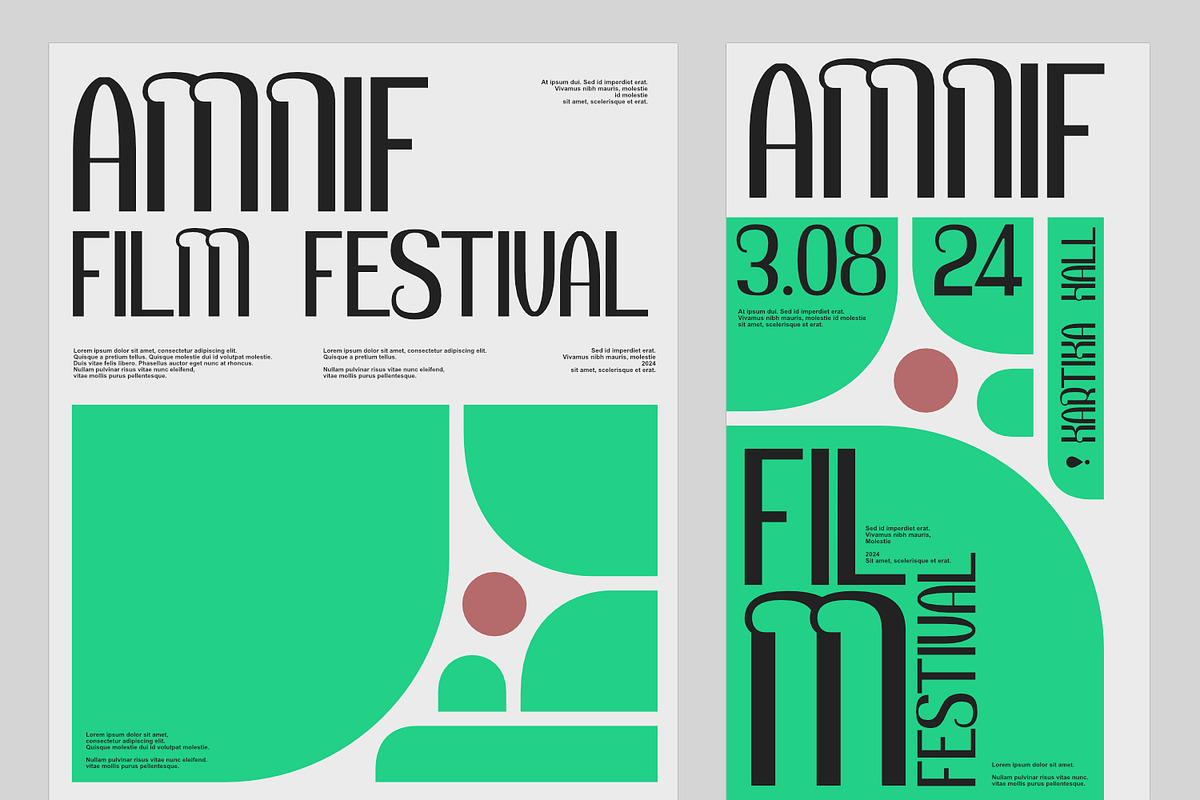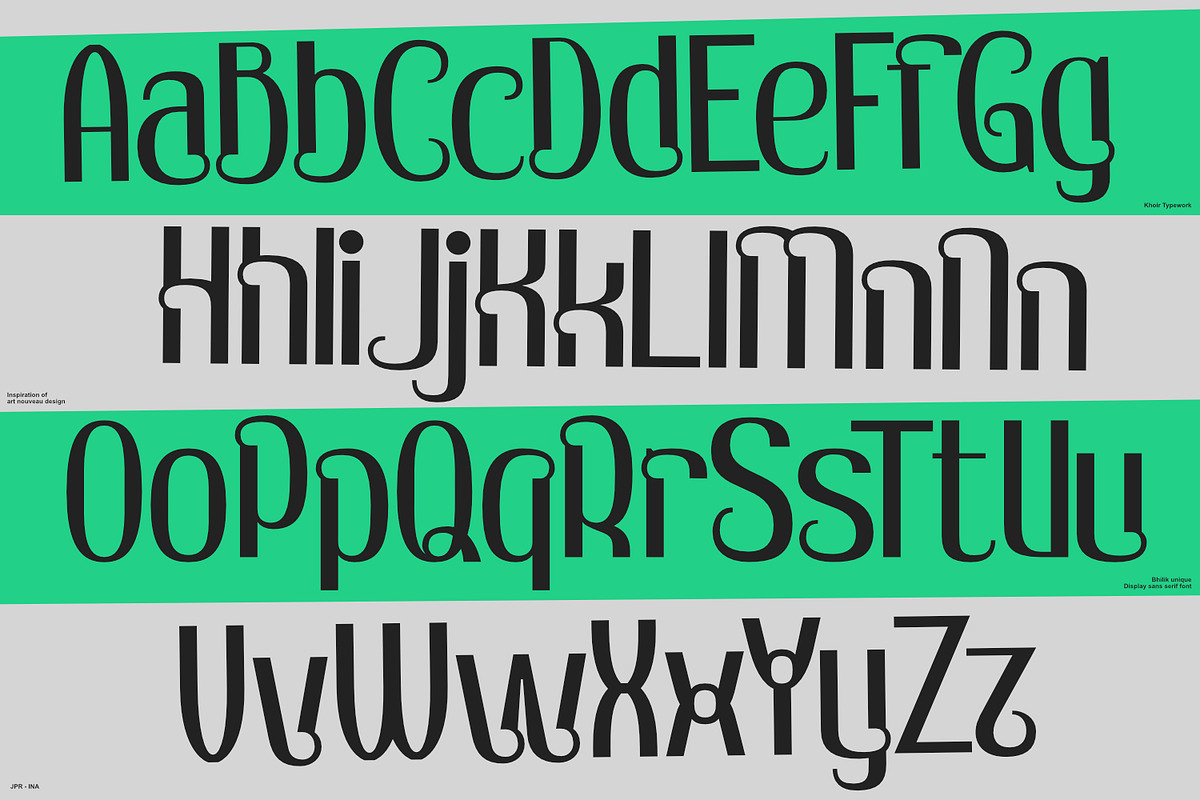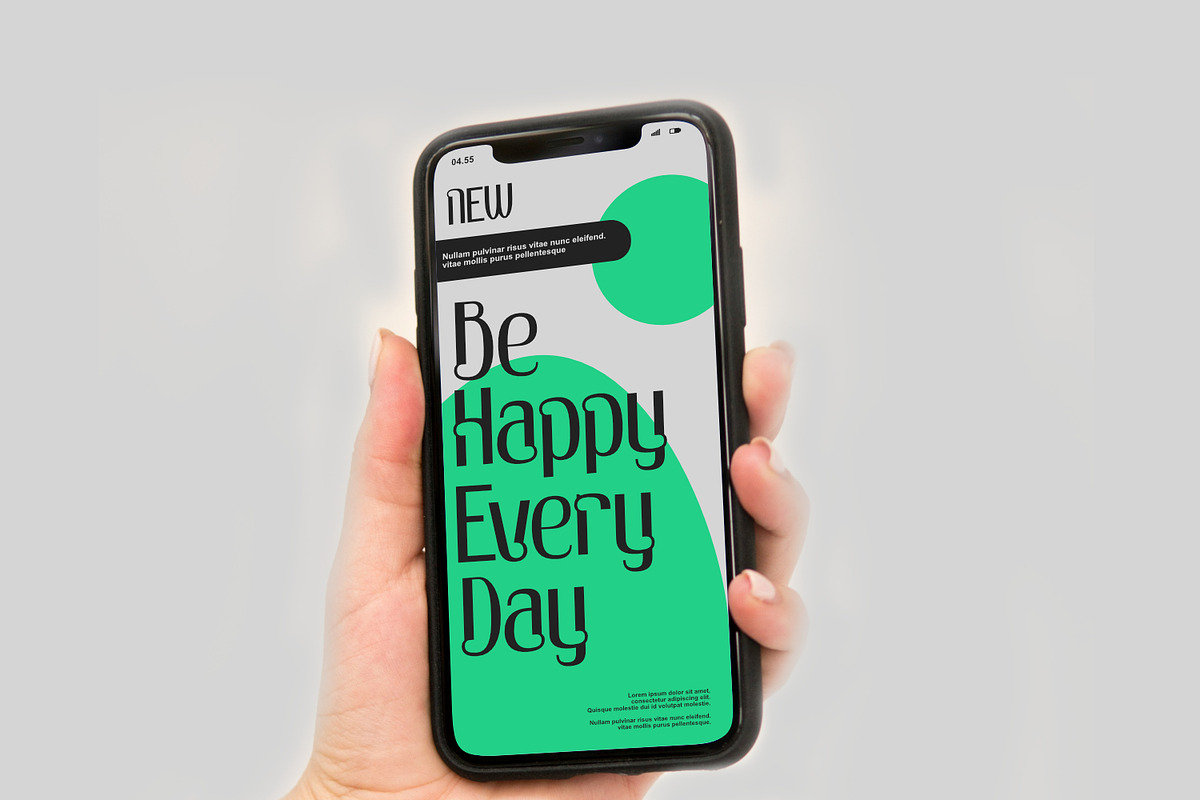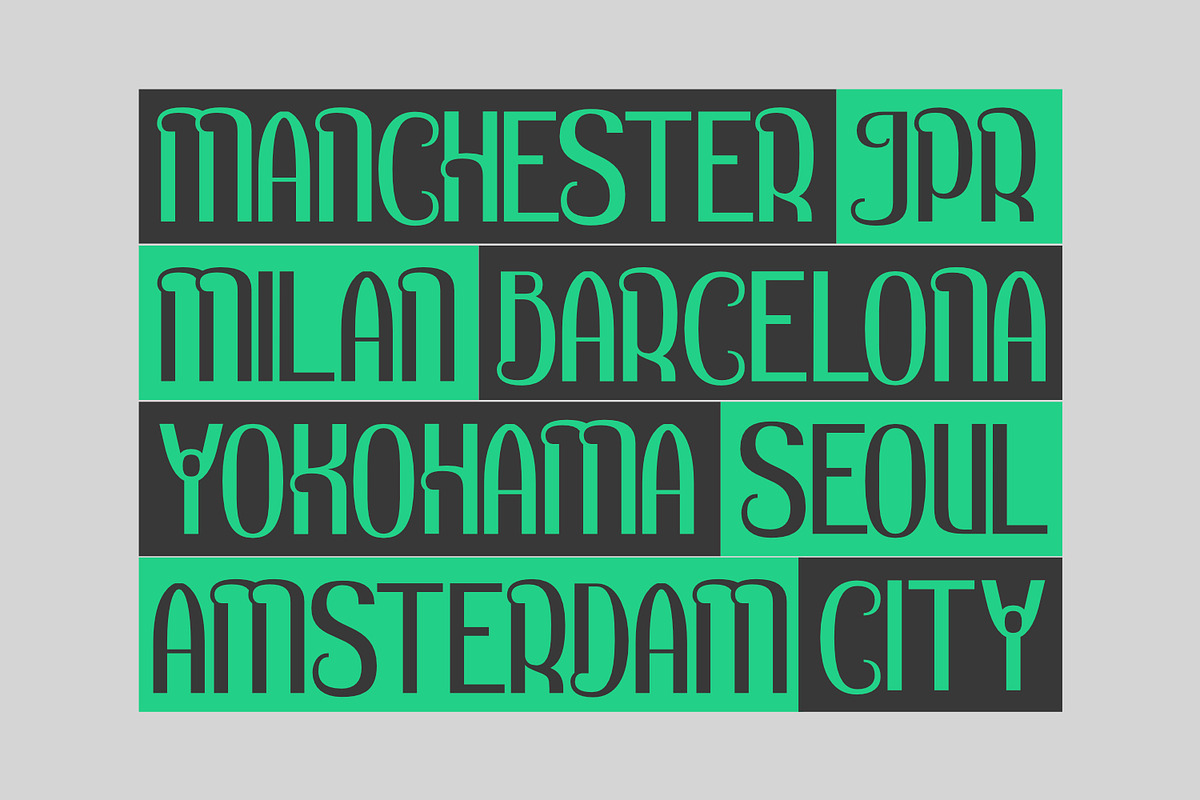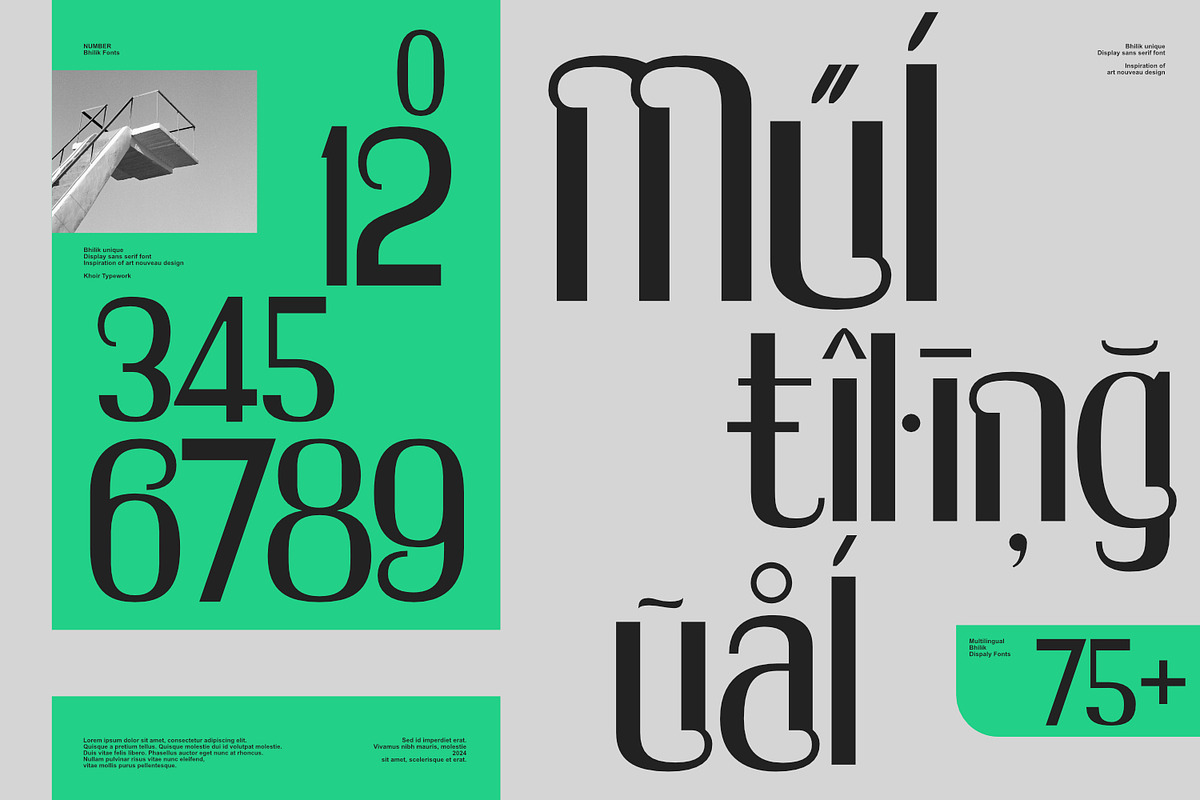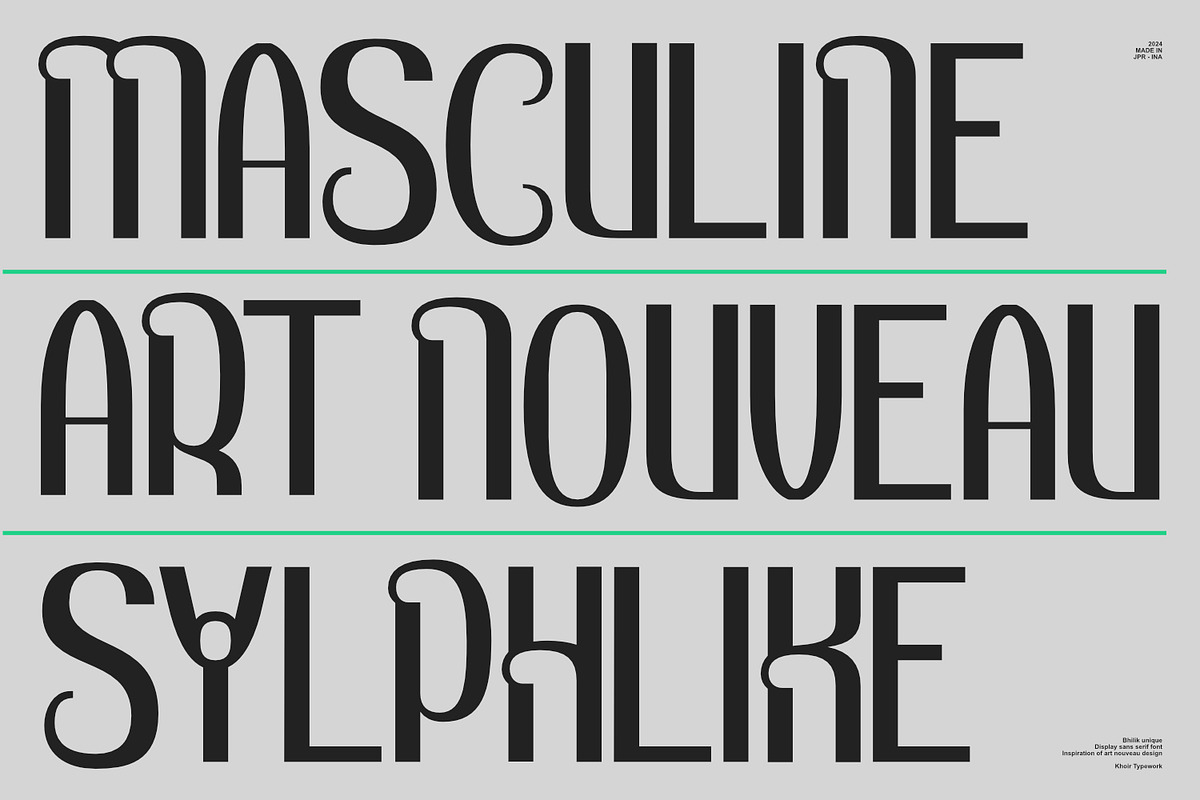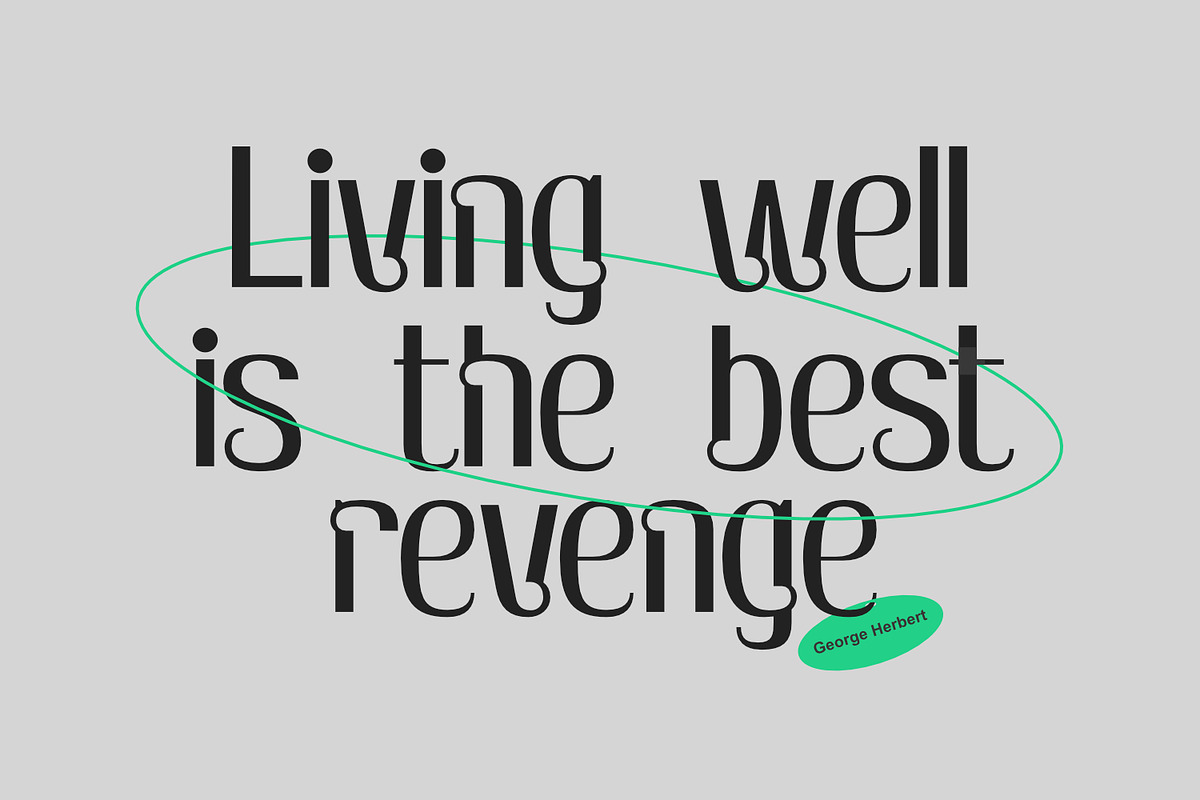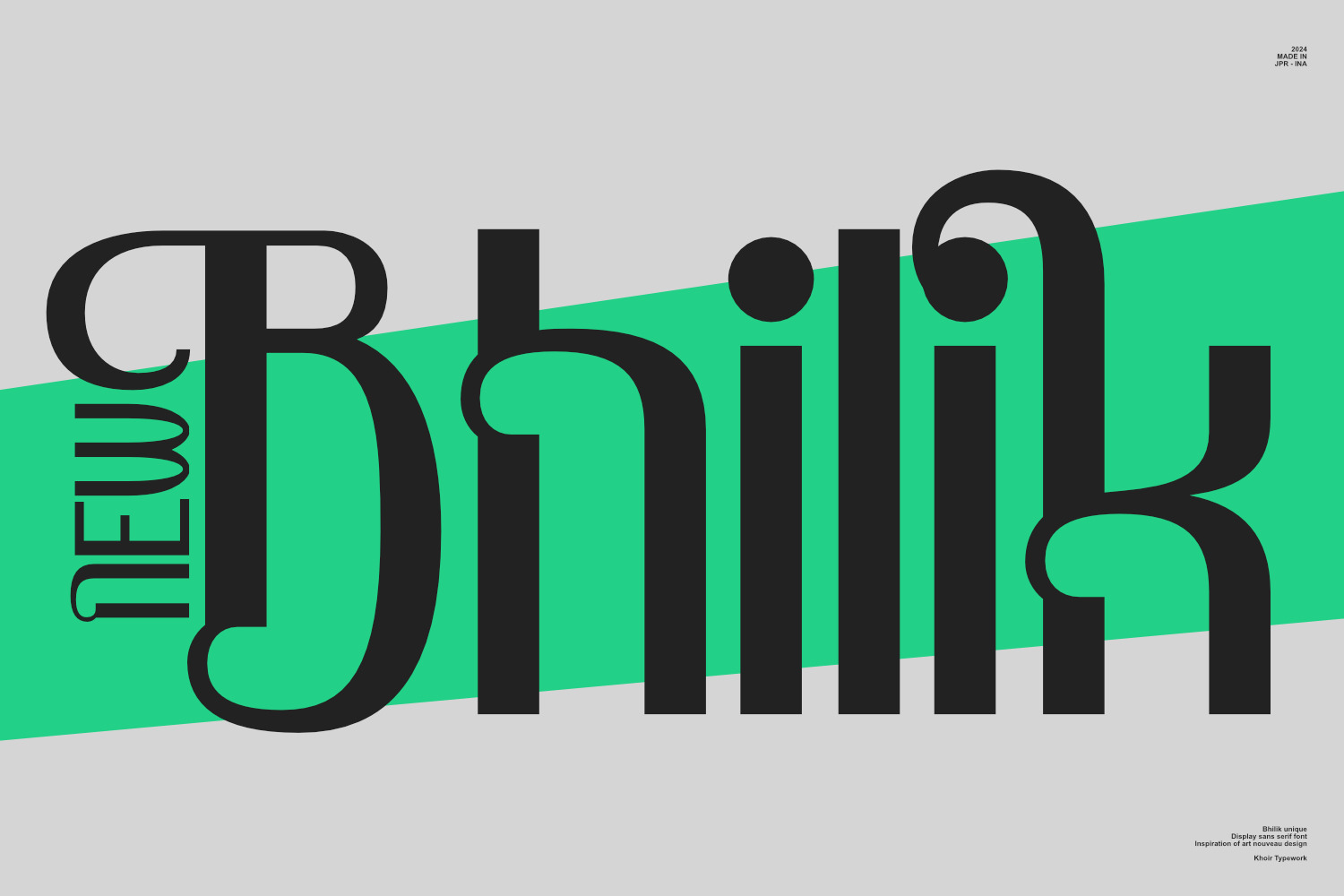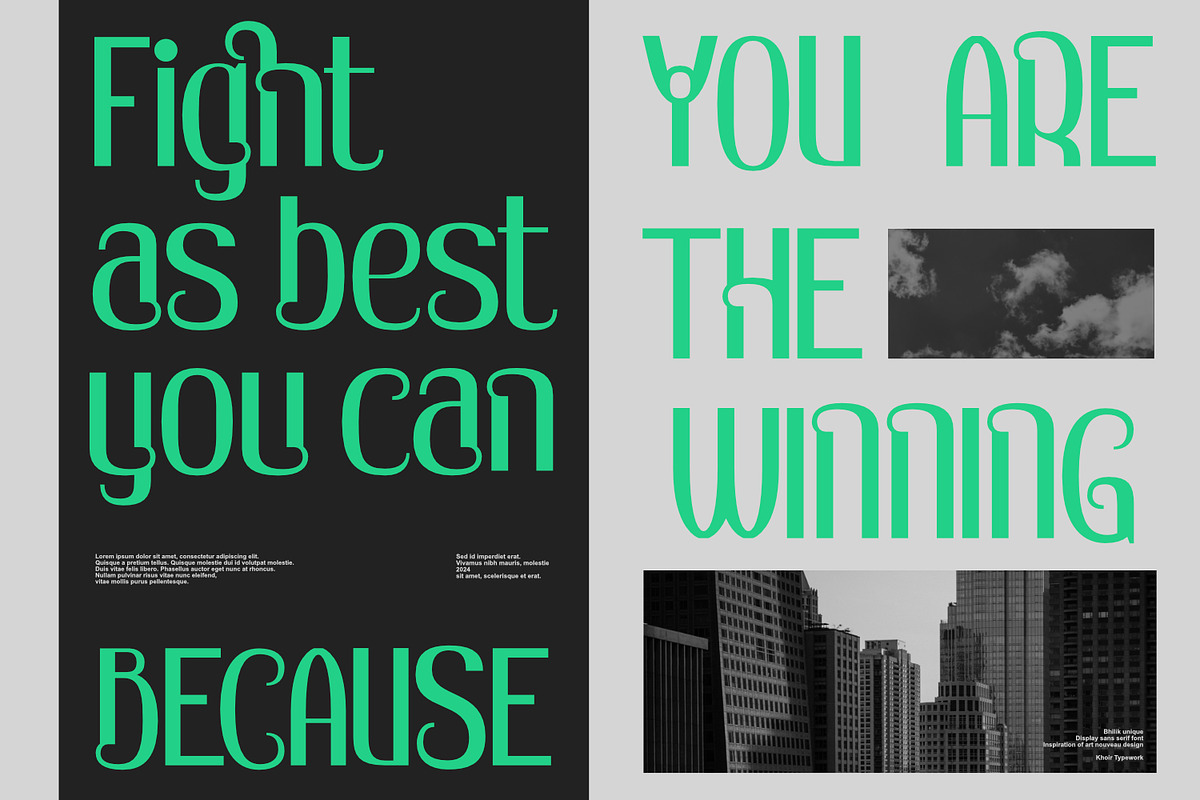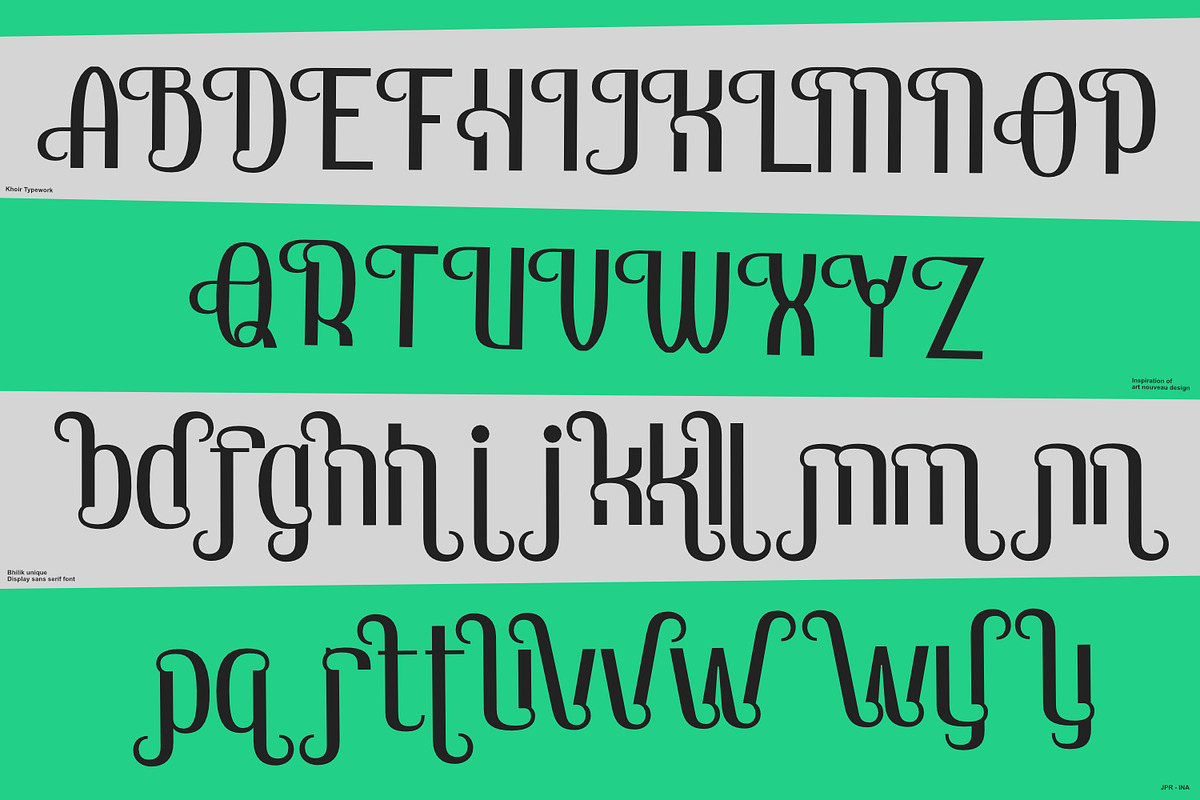
Bhilik - Display Font
A fairly tall sans serif font with a special shape, a touch of art nouveau design style combined with a sleek minimalist style, showing its own charm with its buns and curls, equipped with 75+ languages and font alternatives that can be adjusted to your design style.